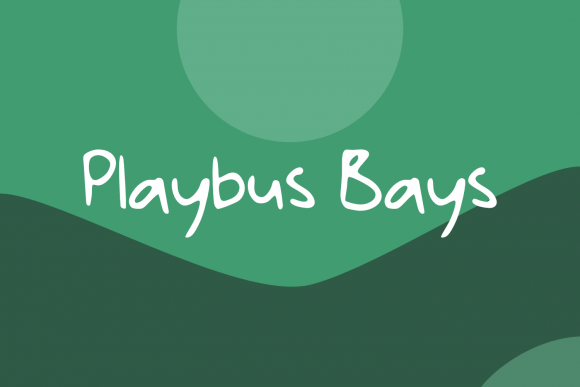
Playbus Bays Font: Your Key to Handmade Product Elegance
As a crafter or small shop owner, the fonts you choose are the silent salespeople for your products. They whisper quality, shout personality, and create the first impression your customer will ever have. Finding that perfect Script Handwritten font that bridges beauty with practicality can be a challenge. That's where the Playbus Bays font shines. Playbus Bays is not just a collection of letters; it’s a tool designed to infuse your work with a natural, trendy, and effortlessly readable handwritten charm.
The character of Playbus Bays is its cool, flexible personality. It possesses that sought-after balance between artistic flair and clear legibility, making it commercially useful for everything from tiny product stickers to large welcome signs. When you use this beautiful font, your project ideas stop being just ideas—they transform into real works of art that customers can touch, hold, and cherish.
Designing Custom Labels and Stickers with Playbus Bays
For any physical product, the label is its face. Using the Playbus Bays font for your handmade soap labels, candle jars, or spice blends instantly elevates the perceived value. This Script Handwritten typeface conveys a personal touch that mass-produced products lack. Its natural flow ensures that even longer phrases, like “Vanilla Bean & Lavender Handmade Soap,” remain clean and readable on a small tag. The flexibility of Playbus Bays means it works beautifully for both minimalist designs and more decorative stickers, allowing your brand’s voice to come through clearly.
Playbus Bays for Wedding Invitations and Elegant Stationery
The wedding and stationery niche demands fonts that are both elegant and emotionally resonant. Playbus Bays meets this demand perfectly. Its trendy yet timeless handwritten style brings warmth to wedding invitations, welcome boards, and seating charts. This font turns formal wording into a personal message, making guests feel individually welcomed. For printable creators, using Playbus Bays for digital invitation templates or wedding signage SVG files offers clients a premium, artful option that stands out from generic cursive scripts.
Crafting Readable Signs and Home Decor with a Handwritten Font
Farmhouse signs, wall art quotes, and personalized home decor rely heavily on typography to set the mood. The Playbus Bays font is ideal for these display purposes. Its cool aesthetic fits modern, rustic, and minimalist styles alike. Whether you’re creating a vinyl decal for a kitchen wall with the phrase “Gather” or designing a printable gallery wall piece, this font’s readability ensures the message is the star, even from a distance. For crafters using cutting machines like Cricut or Silhouette, the clean lines and consistent weight of Playbus Bays make for smooth cuts and easy weeding, translating your digital design into a flawless physical product.
Using Playbus Bays for Product Packaging and Brand Identity
Building a recognizable brand for your handmade shop means finding a signature font you can use consistently. Playbus Bays can serve as that cornerstone for your brand identity. Its natural character lends itself to logo design for boutique shops, artisanal food brands, or craft studios. On packaging—from tote bags to mugs—this beautiful font adds a layer of sophisticated craftsmanship. When paired with a simple sans serif font for supporting text (like ingredients or instructions), Playbus Bays creates a dynamic and professional hierarchy that customers trust.
Creating Seasonal and Holiday Printables with Playbus Bays
Seasonal markets are a huge opportunity for craft sellers, and your font choice can make your holiday products pop. The flexible nature of Playbus Bays allows it to adapt to any season. For autumn, it can give pumpkin patch signs a friendly, handwritten feel. For Christmas, it can make gift tags and ornament labels look lovingly personalized. Designing digital downloads like planner pages or holiday card templates with this font ensures your printables have a unique, artful edge that buyers seek out. It turns a simple “Merry Christmas” into a keepsake.
Practical readability is paramount, especially for items like small stickers or detailed SVG designs intended for cutting. Playbus Bays is described as readable and flexible, which in practice means its letterforms are well-spaced and distinct, preventing visual clutter at small sizes. Always test your designs in a mockup preview at the actual print or cut size to ensure the font’s charm translates perfectly to the final product.